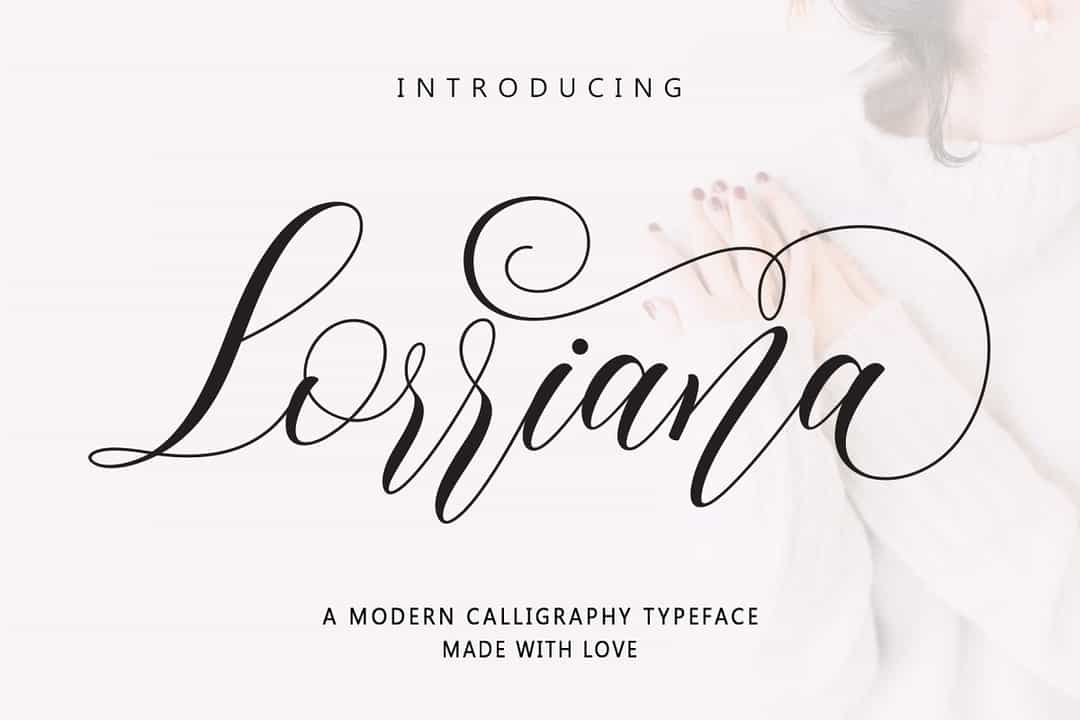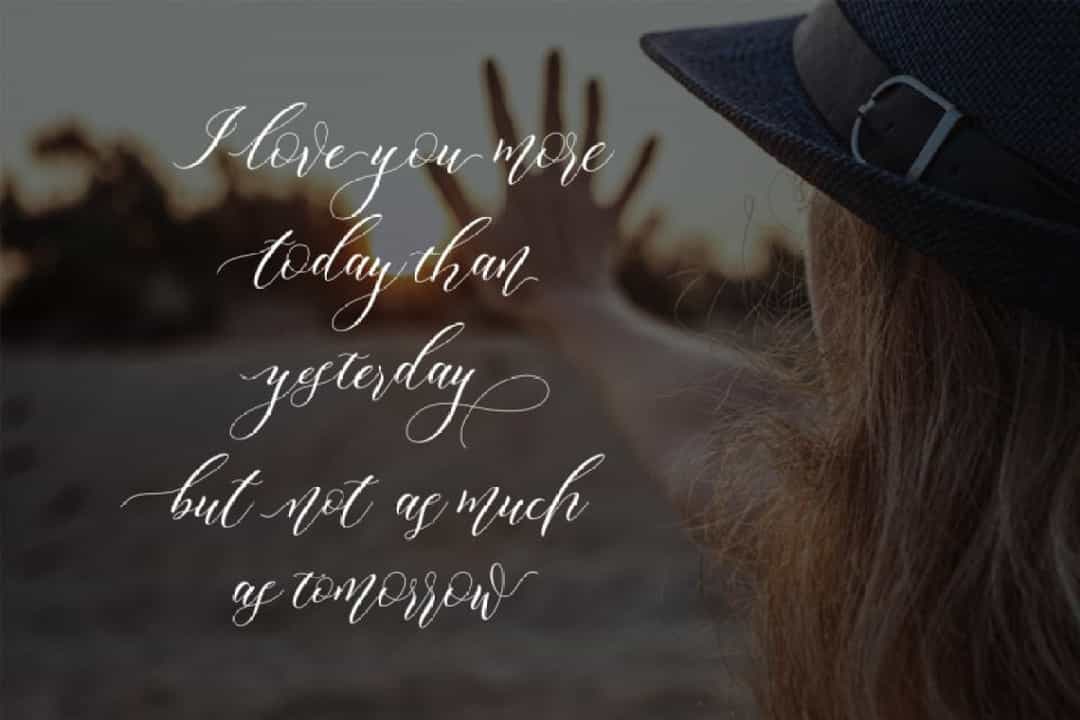
Introducing Lorriana Font. Lorriana is a modern calligraphy script font, each letter has been designed to make your text look gorgeous. With modern script style this font will perfect for many different project, example: invitations, greeting cards, posters, name card, quotes, blog header and other things like that!